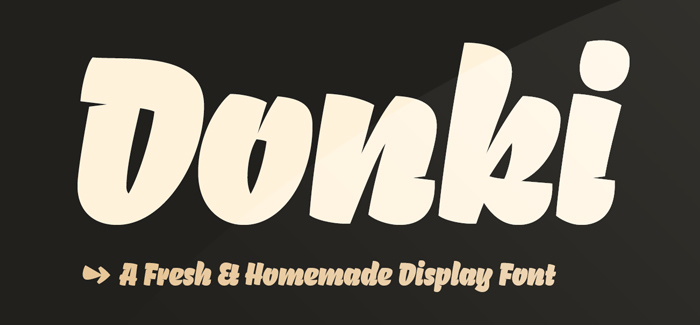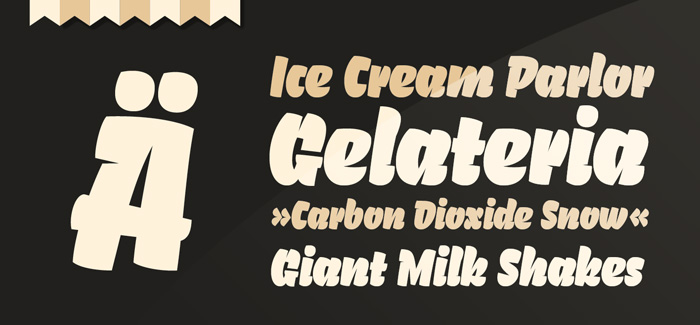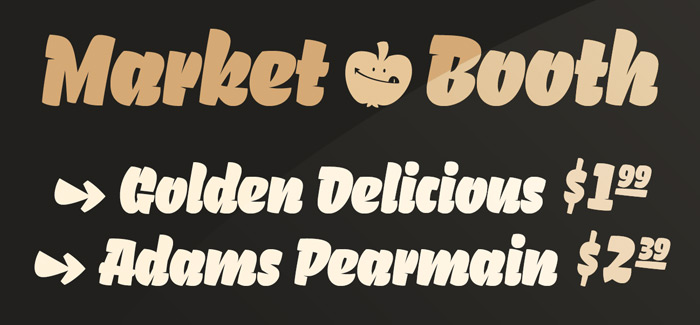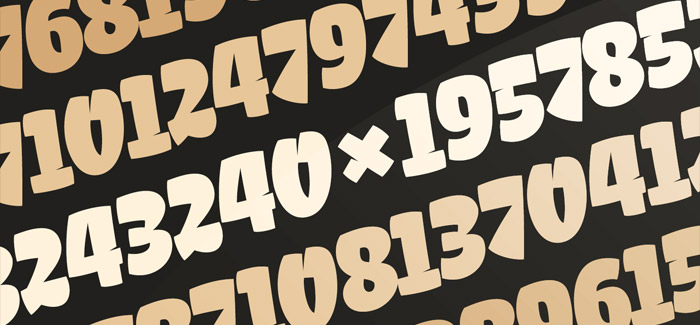
Donki font
Donki font is an attractive display font by Gunnar Link. It has very original style – a beautiful fusion between different type currents – from gothic fractur to extra black and heavy contrast wood types. Donki has a lot of personality and very strong character and presence – a word in Donki could practically become a logo with only one move and you won’t need any additional elements for your design. It is very artistic yet possessing excellent legibility and high contrast – a perfect choice for poster design, t-shirt, branding and logo design. Adding some extra ligatures and Central & Western Europe diacritics set will allow you to use it for almost everything written in Latin. Charming and memorable Donki font would surely become your best friend if you want to have attractive typography in your design